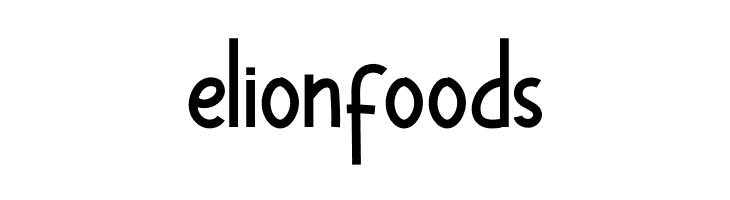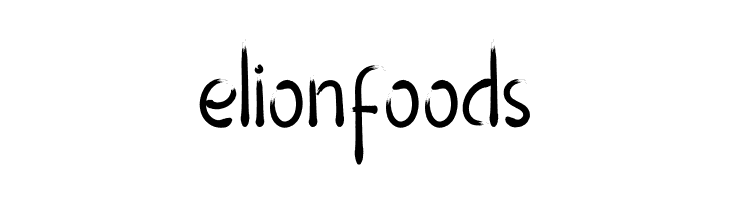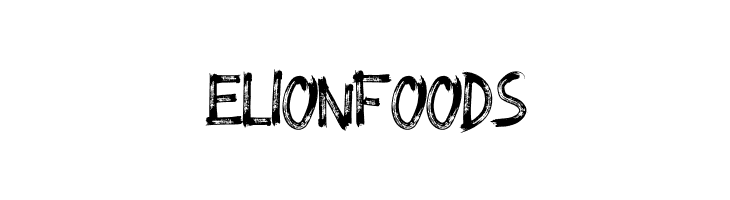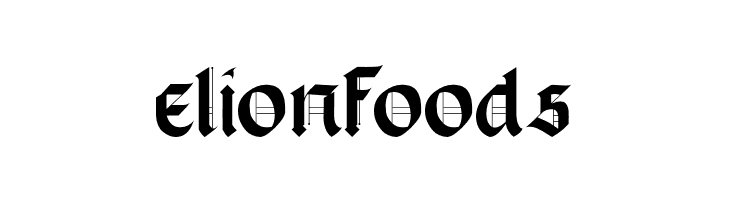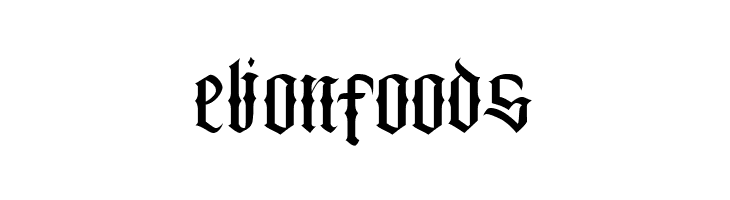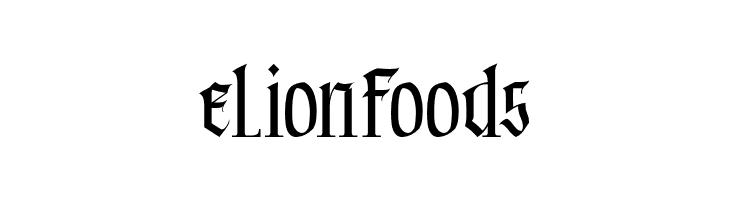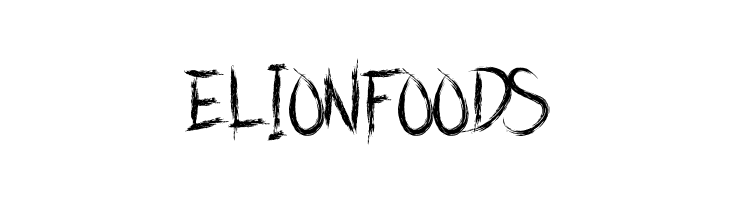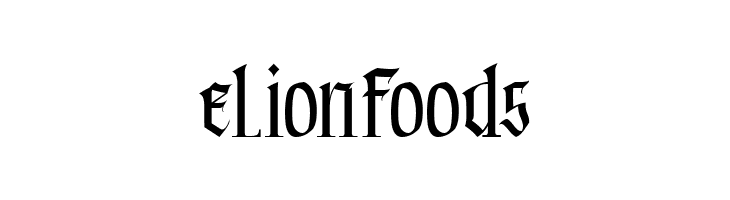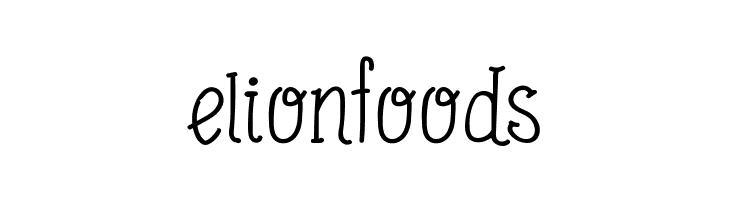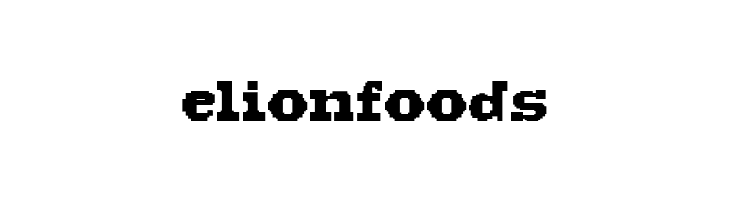
A bold, elegant script font with flowing, cursive letterforms.
A playful, handwritten font with a whimsical and doodle-like style.
A playful, hand-drawn font with thick, rounded strokes and an informal style.
A bold, cursive font with a flowing, handwritten style.
A playful handwritten font with smooth curves and a casual style.
Hand-drawn blackbird illustrations used as character glyphs.
A bold blackletter font with sharp, angular lines and intricate detailing.
A bold, gothic blackletter font with intricate detailing.
Ornamental designs lacking alphanumeric characters.
A collection of intricate ornamental and decorative elements.
A bold, geometric font with characters enclosed in square outlines, offering a modern and structured look.
A gothic, dripping font with sharp, angular lines for a haunting effect.
A decorative and gothic font with intricate, angular designs and ornamental flourishes.
A bold, textured font with a hand-drawn, chalk-like appearance.
A bold, textured font with a playful, chalk-like appearance.
A playful, handwritten font with uneven strokes and a casual feel.
A bold, handwritten-style font with dynamic, brush-like strokes.
A playful, informal font with a chalkboard handwriting style.
A playful, handwritten font with a chalk-like texture and informal style.
A dynamic and expressive handwritten font with fluid strokes.
A bold blackletter font with sharp, angular lines and high contrast.
A bold, traditional Blackletter font with sharp, angular lines and a medieval aesthetic.
A classic Blackletter font with sharp, angular lines and intricate detailing.
A bold, graffiti-inspired font with sharp, angular edges and dynamic strokes.
A graffiti-inspired font with sharp, angular lines and dynamic, energetic characters.
A graffiti-inspired, artistic font with dynamic and expressive characters.
An edgy, hand-drawn font with sharp, angular lines and a dynamic appearance.
A graffiti-inspired font with sharp, angular lines and dynamic curves.
A bold, hand-drawn font with a textured, graffiti-like style.
An ornate and decorative font with elongated serifs and intricate details.
An ornate blackletter font with bold, angular letterforms and a historical feel.
A traditional Gothic-style font with intricate, angular letterforms and high contrast.